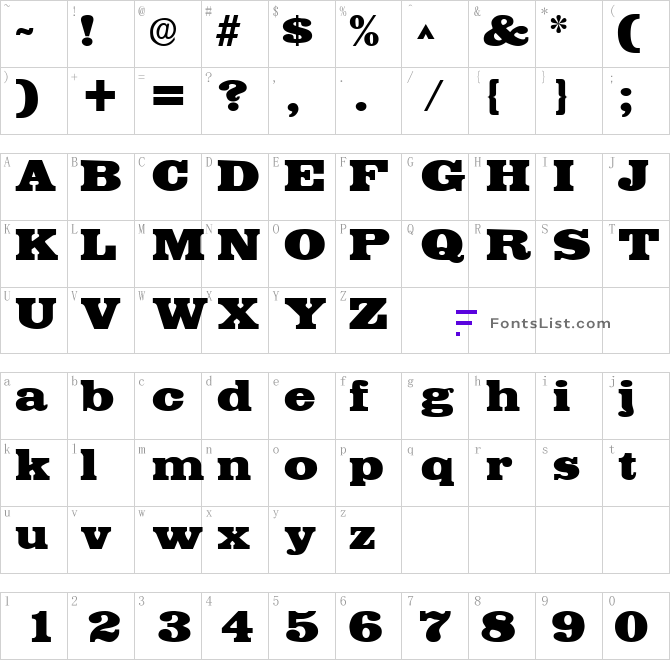
- Font Name:Cairo SF
Cairo-SF.ttf is a very beautiful artistic font, Cairo-SF.ttf is widely used in the design and printing of various books and pictures,Cairo-SF.ttf has a strong visual impact,Cairo-SF.ttf is a commonly used font in newspapers, magazines and books, and is used in posters, e-commerce Poster design, store design, logo design, font design and other fields.Cairo-SF.